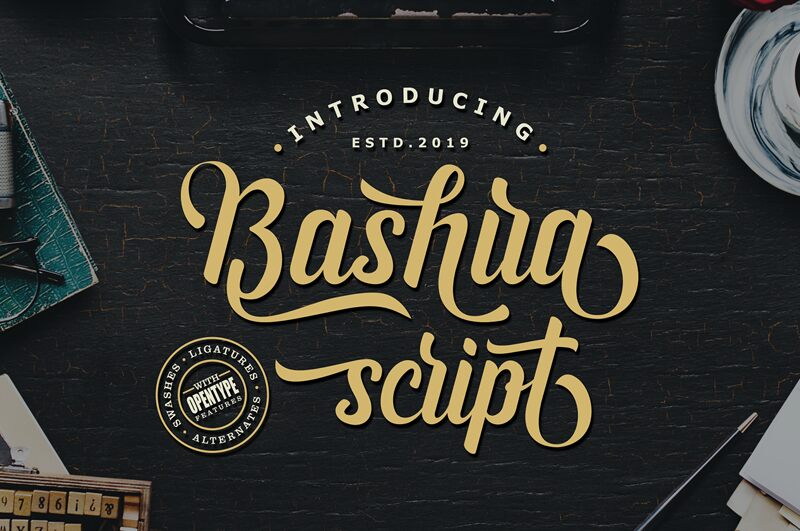
Bashira
Bashira is an amazingly authentic script font with distinctive characters! Suitable for making logos (typography), titles, posters, quotes and many more.
Stylish Script Typeface